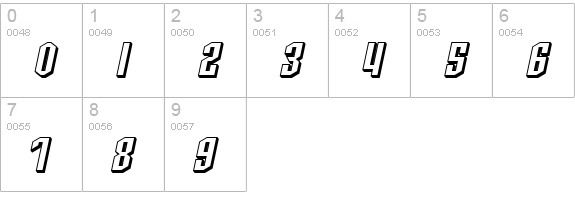
SF Archery Black SC Shaded Oblique Font Details
SF Archery Black SC Shaded Oblique is a maximum-weight, dramatic, italic variant in the SF typeface family \xE2\x80\x94 well suited to maximum-impact headlines, posters, and packaging.
SF Archery Black SC Shaded Oblique font is a stunning display font that exudes elegance and sophistication. Its sleek and modern design is perfect for adding a touch of class to any project or design. The oblique style adds a dynamic and stylish twist to the traditional archery font. This font is not only visually appealing but also highly versatile. It can be used for various purposes such as logos, headlines, titles, posters, invitations, and much more. Its bold and striking appearance ensures that your message will be noticed and leave a lasting impression. One of the best things about SF Archery Black SC Shaded Oblique font is that it is freely available to download at FontsMarket.com. This means that you can access this incredible font without any cost. Whether you are a professional designer or a hobbyist, this font is a valuable addition to your font library. With SF Archery Black SC Shaded Oblique font, you have the freedom to unleash your creativity and bring your design ideas to life. Its clean and well-crafted letterforms make it easy to read and understand, ensuring that your message is effectively communicated to your audience. So why wait? Download SF Archery Black SC Shaded Oblique font today and elevate your designs to new heights. With its timeless appeal and the freedom to use it in any project, this font is a must-have for every designer. Visit FontsMarket.com now and discover the endless possibilities that this font holds for your creative endeavors.